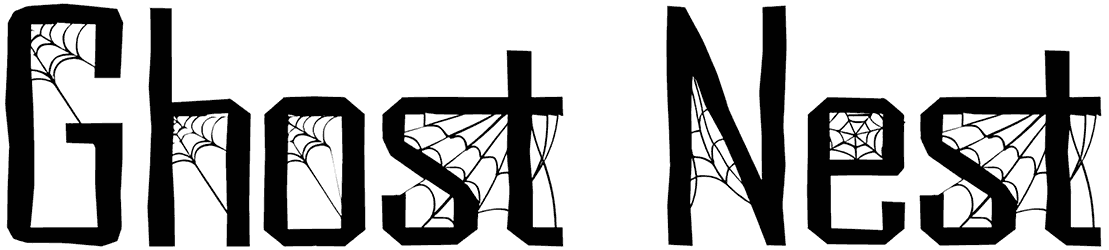
Ghost Nest Font
Furnish your design looking like an abandoned castle and convey to your viewers a sense of fear and dither with its sinister elements. Ghost Nest is a decorative font with a lot of tiny ornaments; you can even see a black cat walking around the letters.
This spider font represents a catchy item for many creative designs, for example, posters, foregrounds, cartoon screens, and so forth. Hope you enjoy touring this dreadful nest.